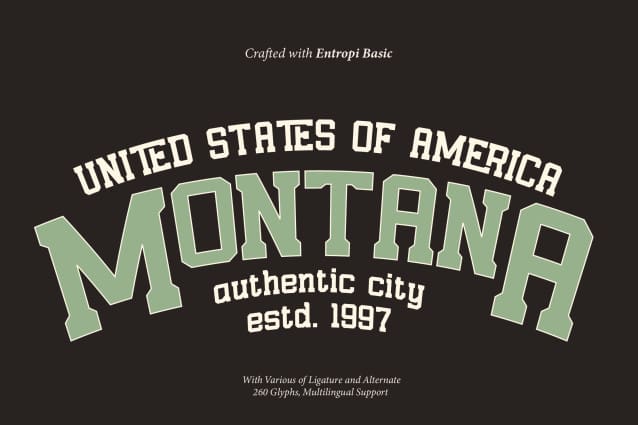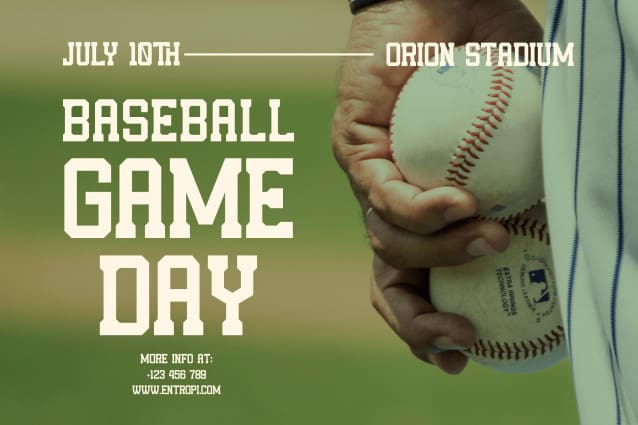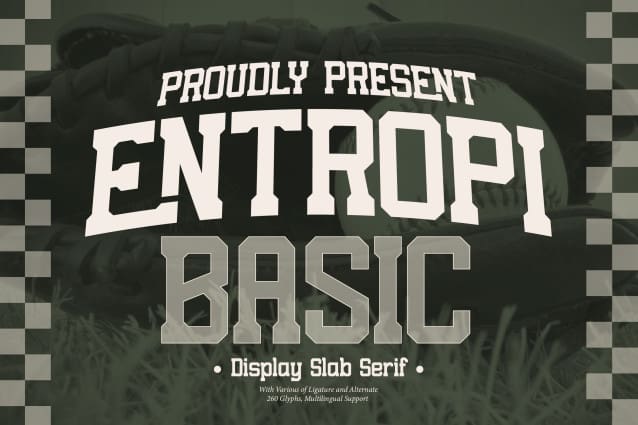
Entropi Basic Font
Entropi Basic Font | Display Slab serif, from Denustudios, suitable for any projects such as: logos, branding projects, homeware designs, product packaging, mugs, quotes, posters, shopping bags, t-shirts, book covers, name card, invitation cards, greeting cards, label, photography, watermark, special events, and all your other lovely projects that need a Display Slab serif taste.